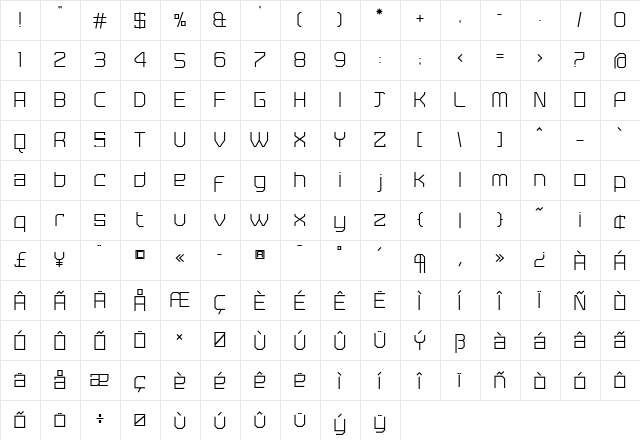
Tremble Light
| Foundry | \ The Identikal Foundry \(Part of the Identikal Corporation\) |
Design Context for Tremble Typeface
Tremble takes a measured approach to typography — its balanced proportions and neutral character make it a reliable workhorse for both digital and print work. Its slender proportions lend an understated elegance to any composition.